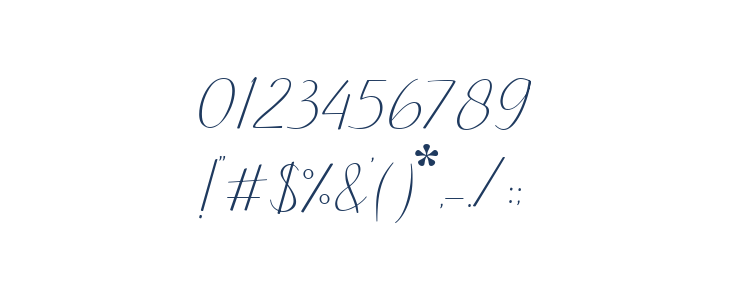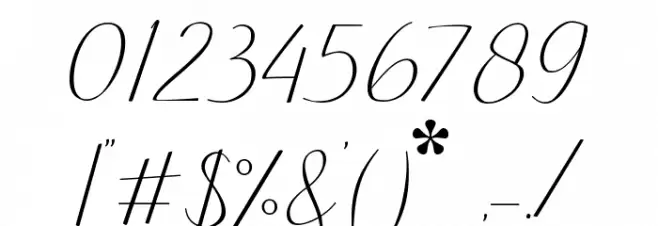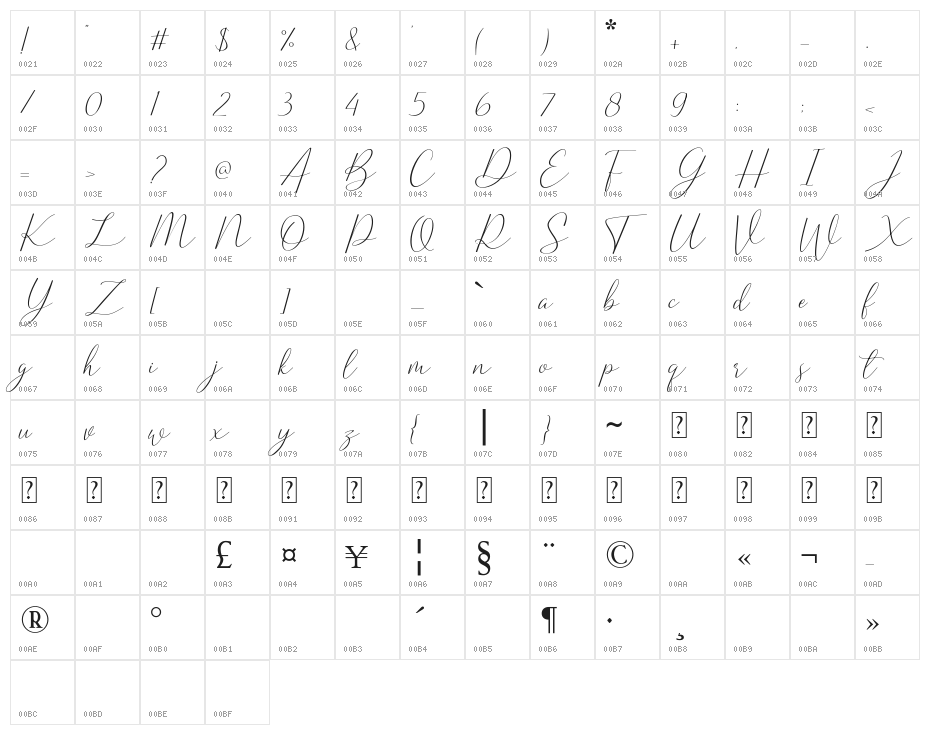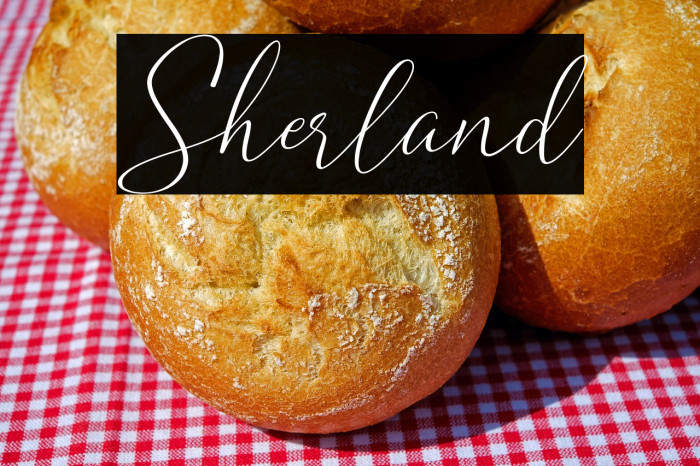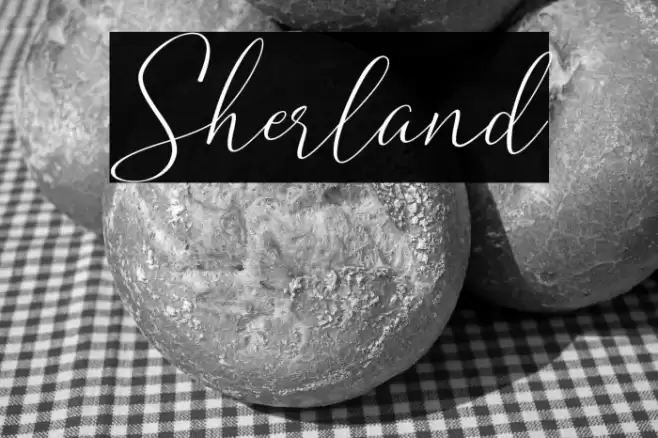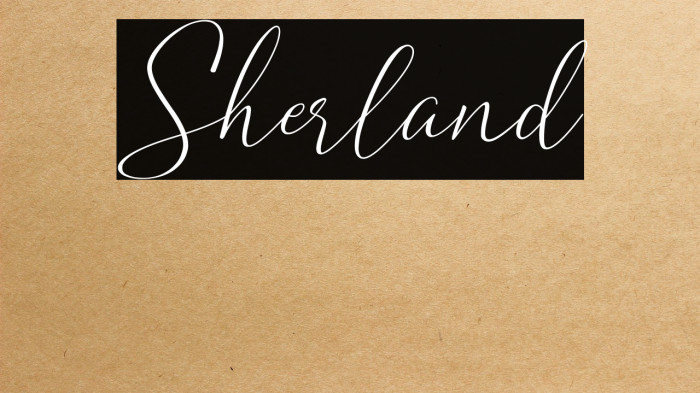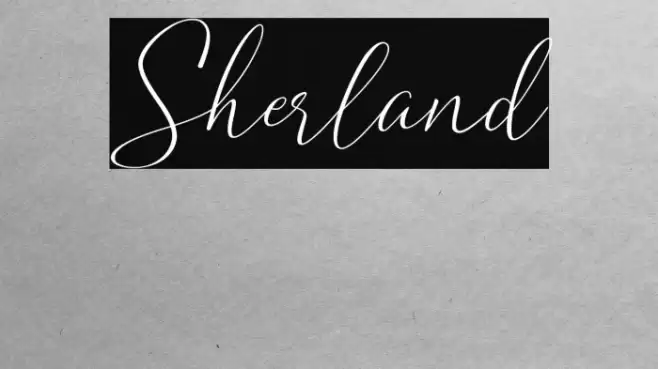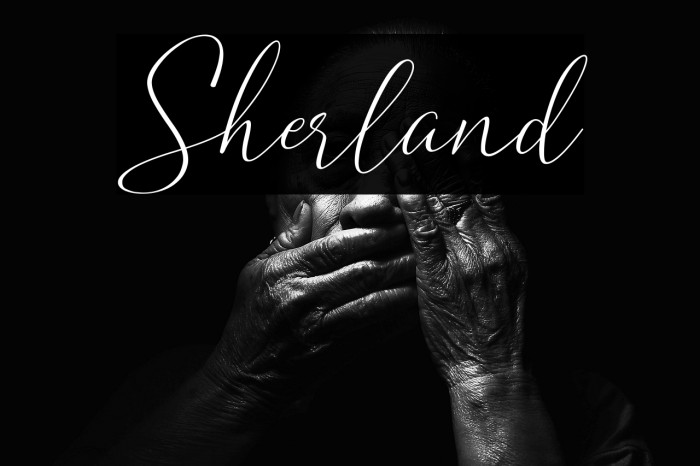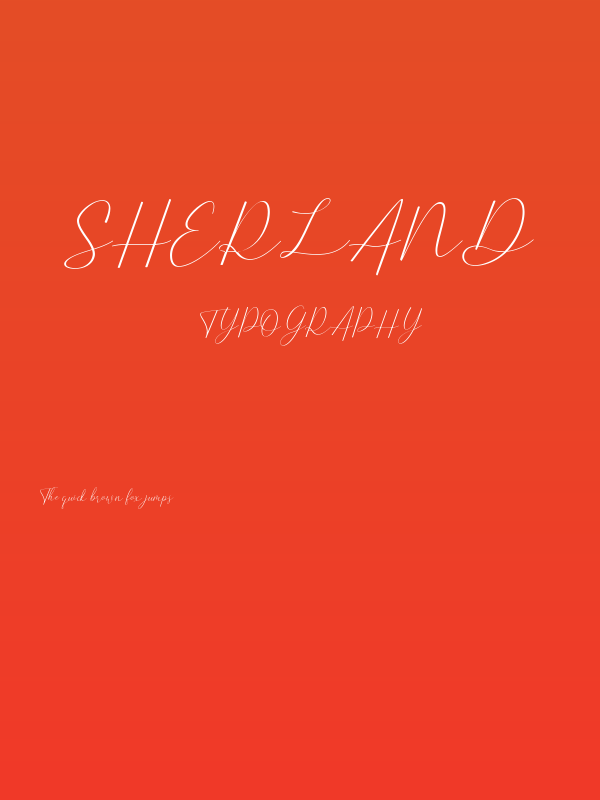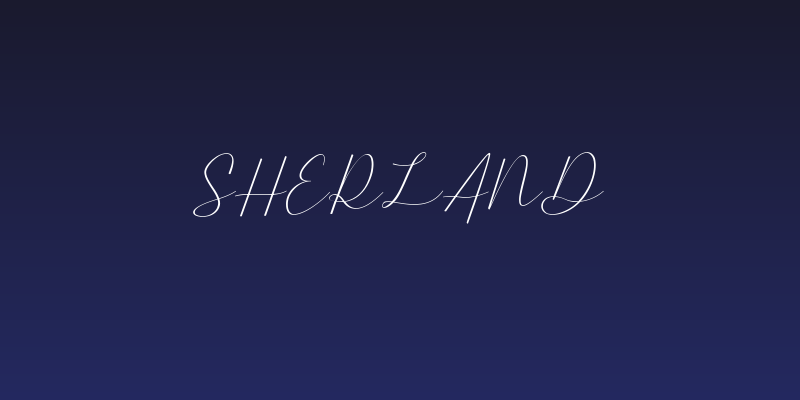
Sherland Font
Sherland Description
This font exudes elegance and sophistication with its flowing, cursive style. The letters are delicately crafted with smooth, continuous strokes that give it a handwritten feel. The uppercase letters are tall and graceful, while the lowercase letters maintain a consistent flow, enhancing readability. The numerals are stylishly integrated, matching the overall aesthetic. Special characters are thoughtfully designed, complementing the script's fluidity. This font is perfect for projects that require a touch of class and personal flair, such as invitations, branding, and editorial design.
| Use Case | Invitations, Branding, Editorial Design |
| Proposed Projects | Ideal for wedding invitations, personal branding, elegant logos, and editorial design. |